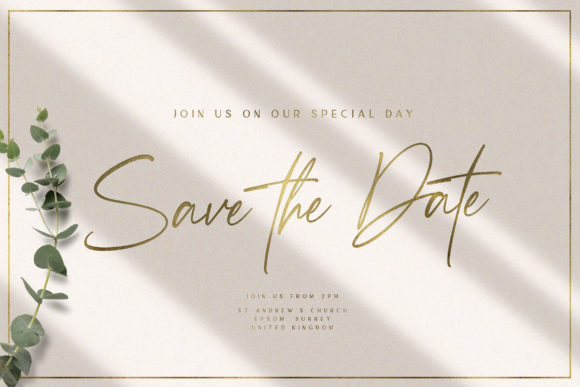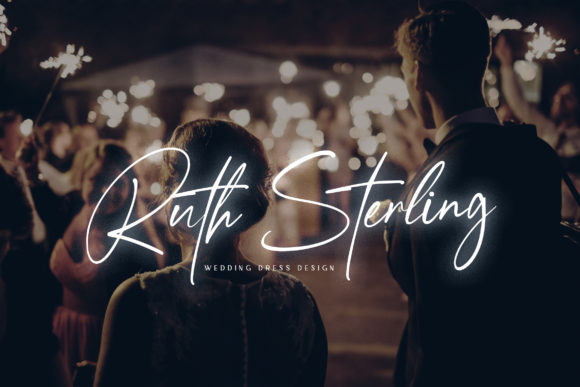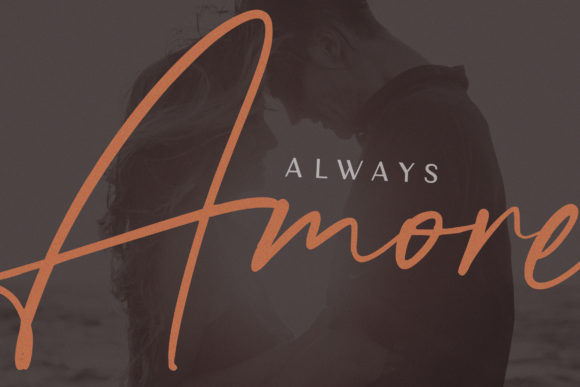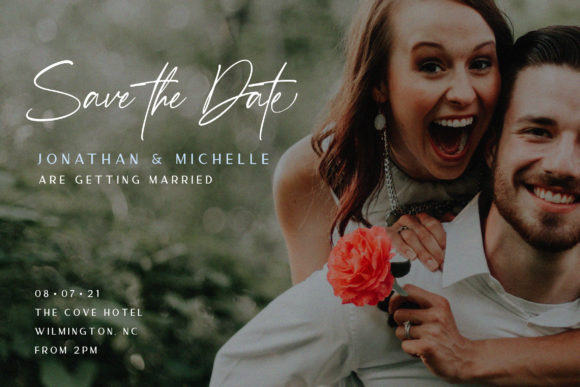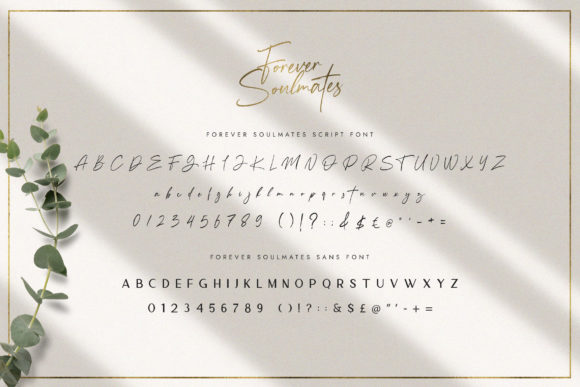
Forever Soulmates Font
About Forever Soulmates Font
Forever Soulmates is an incredibly beautiful and versatile duo font (sans serif and script). It is the best choice for creating eye catching logos, branding and quotes. Every letter has a unique and beautiful touch, which will make your design come alive!